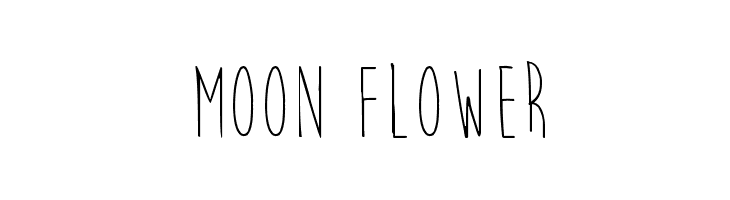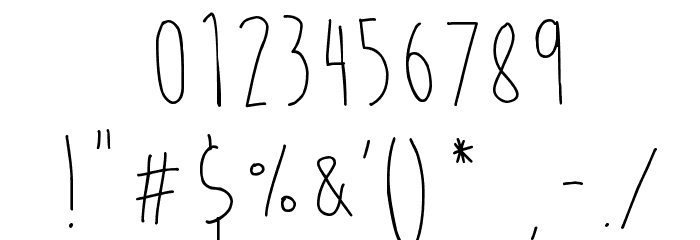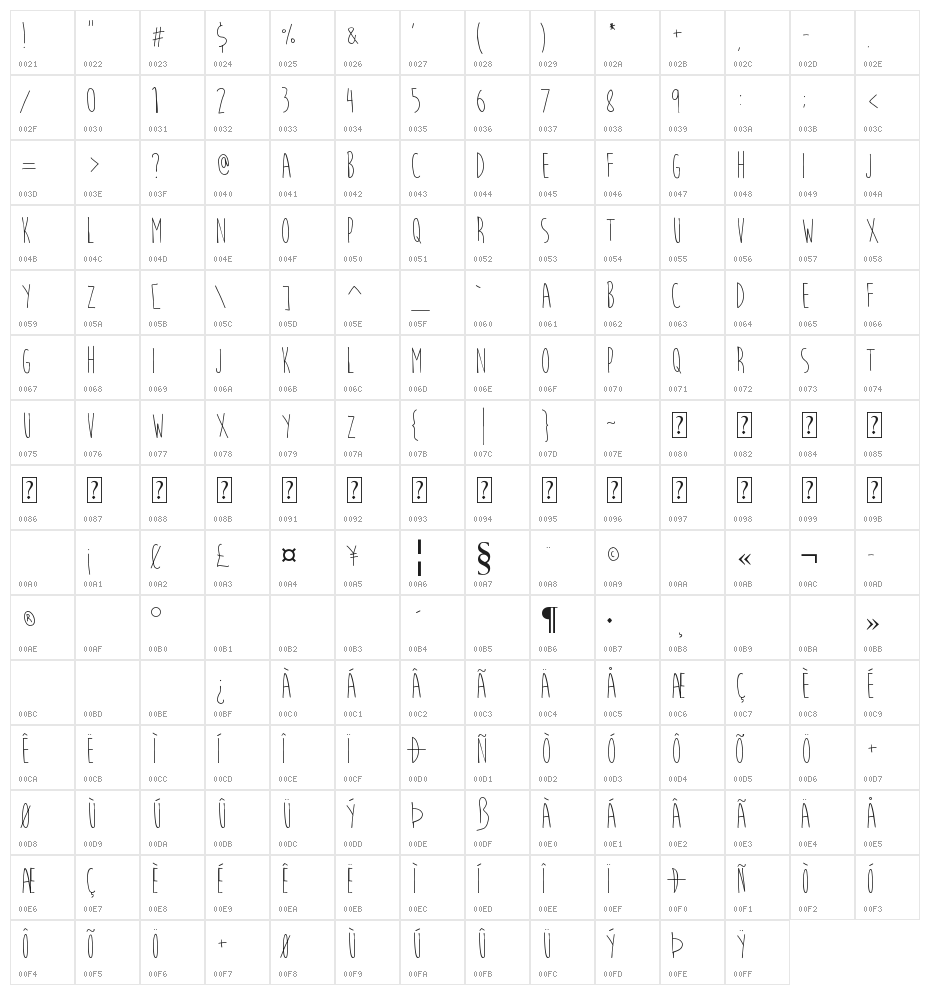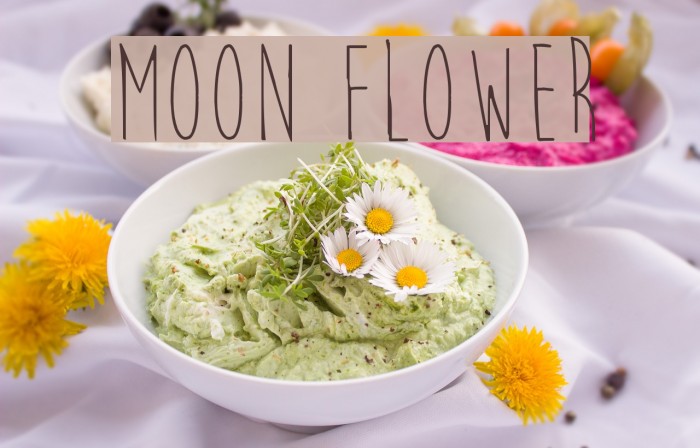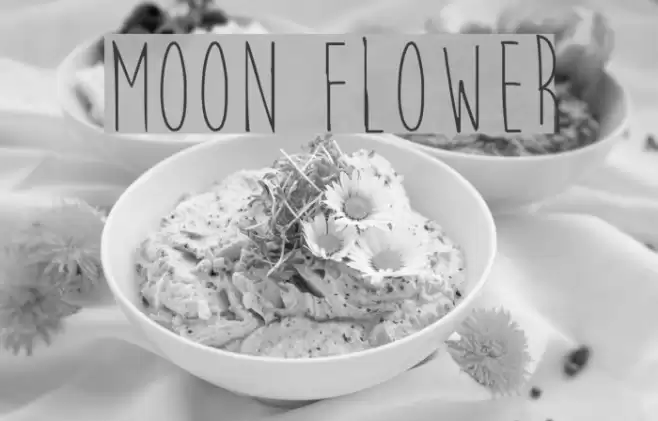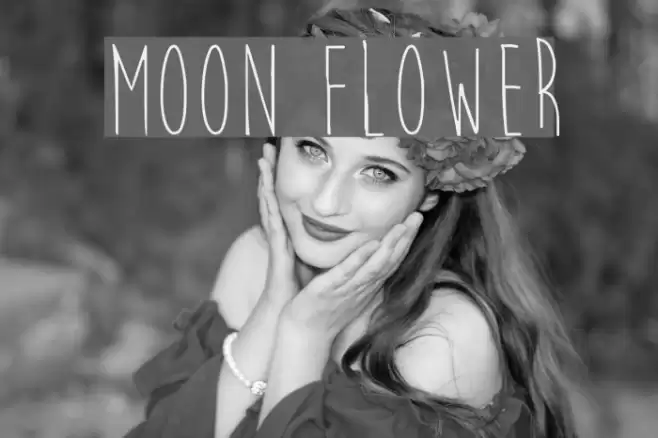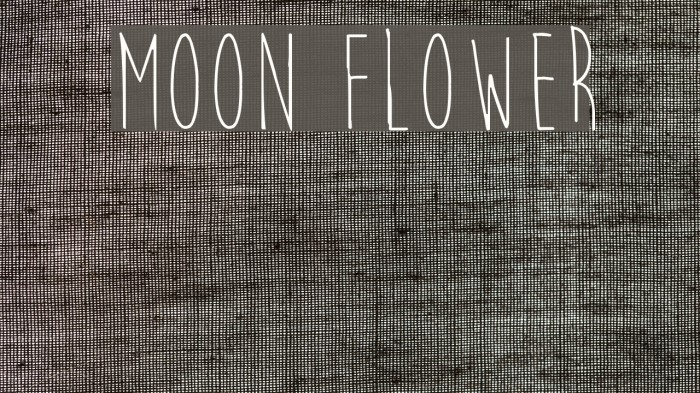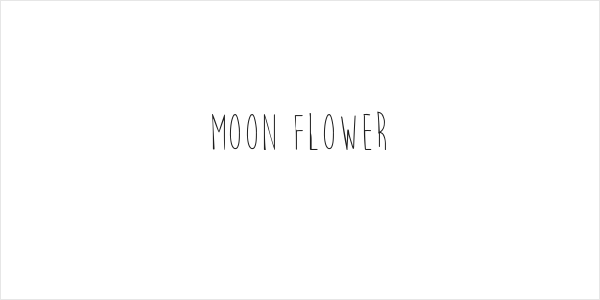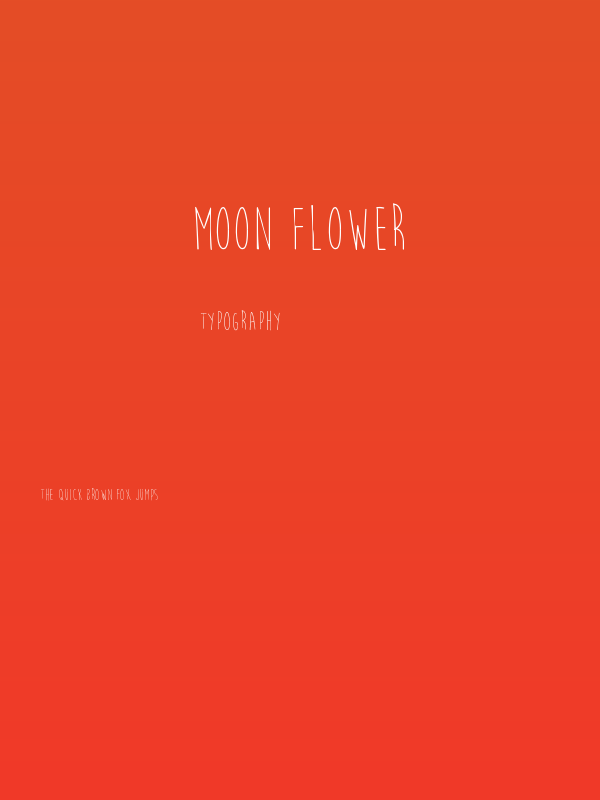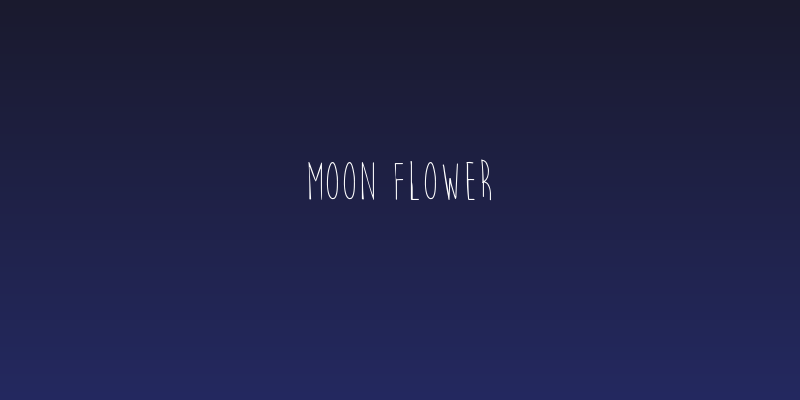
Moon Flower Font
Moon Flower Description
This font features a whimsical and playful handwritten style, characterized by tall, narrow letters with a slight irregularity that adds charm and personality. The strokes are thin and consistent, giving it a delicate appearance. The uppercase and lowercase letters maintain a cohesive look, while the numbers and special characters complement the overall aesthetic. This font is ideal for projects that require a touch of creativity and informality, such as invitations, greeting cards, or personal branding.
Proposed ProjectsIdeal for invitations, greeting cards, personal branding, and creative projects.